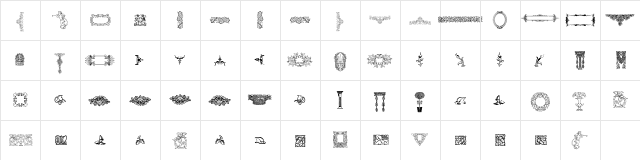
Mortised Ornaments Free Two Regular
Design Context for Mortised Ornaments Free Two Typeface
Mortised Ornaments Free Two brings ornamental detail and strong personality to headlines and identities, where visual impact matters more than quiet functionality.
Font Pairing: Pair with a clean neutral sans-serif for body copy to let Mortised Ornaments Free Two's character lead without overwhelming the composition.
Pro Tip: Use Mortised Ornaments Free Two exclusively at display sizes — it was designed to be seen, not read at length. Let a neutral companion handle body copy.